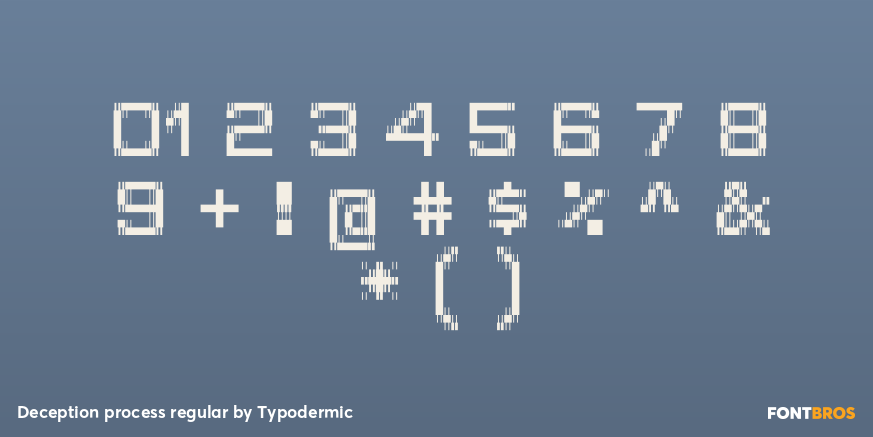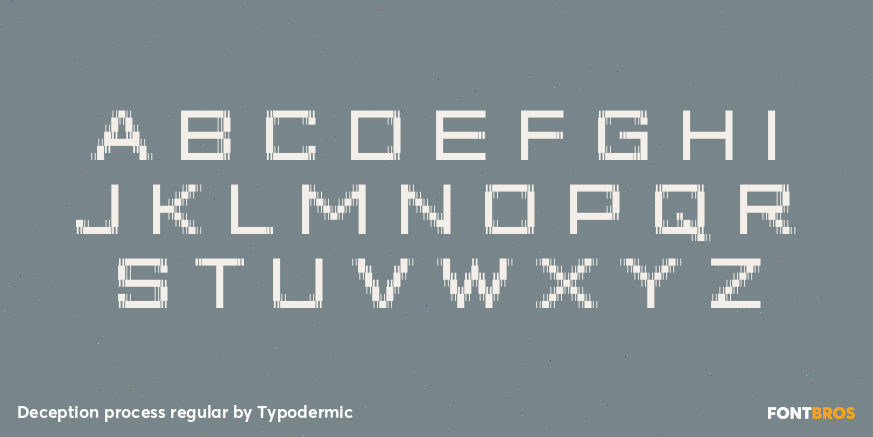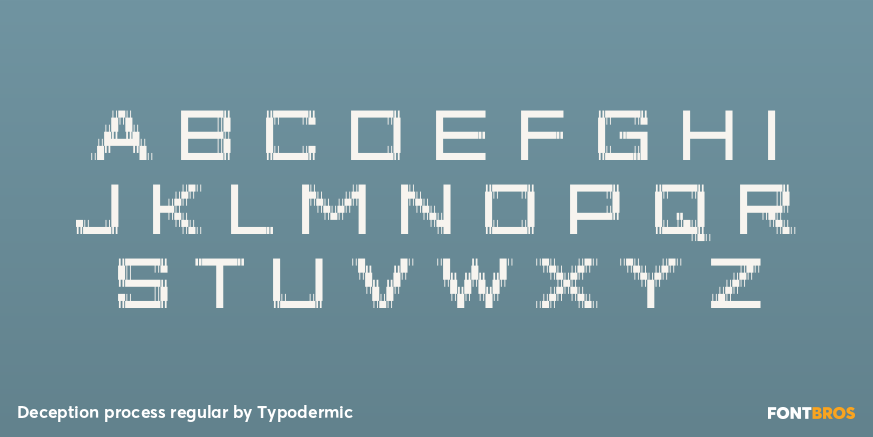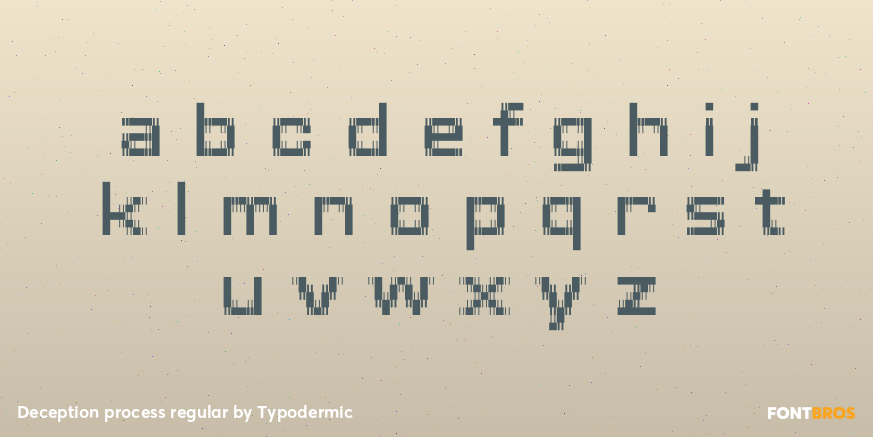
Deception process regular
Deception Process exposes the alphabet as a sequence of tonal and mechanical decisions, giving words the character of an image moving through scanning, rasterization, prepress, or reconstruction. It feels less like a finished surface than a visible step in a production pipeline.
Use Process for printing-technology launches, scanner and camera demonstrations, digital-preservation programs, visual-effects breakdowns, workflow diagrams, media-literacy campaigns, and documentary chapter titles. Regular and Bold can distinguish explanatory sections from the principal processed image.